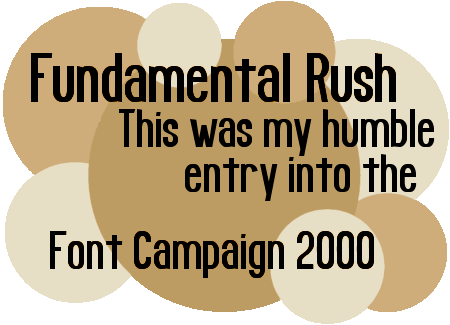
Two conservative voices in American politics. Even if they don't always agree with each other... And even if I don't always agree with them either... You have to admit they are powerful voices.
This font includes many punctuation and international characters, but not nearly all of them.